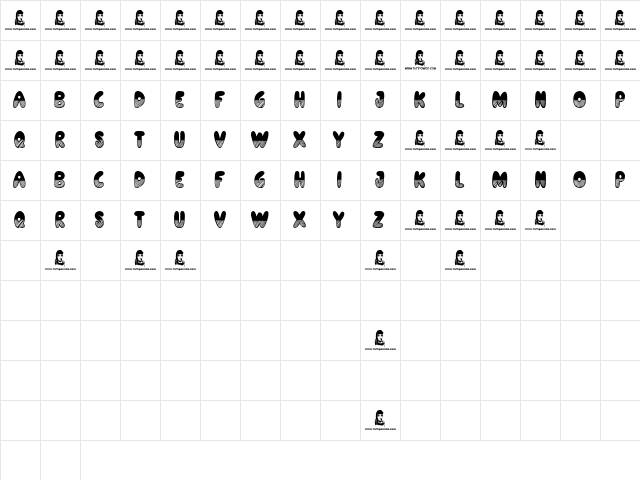
Shades of Black Regular
Design Context for Shades of Black Typeface
Shades of Black is a composed and adaptable typeface that performs quietly and consistently across a wide range of design contexts.